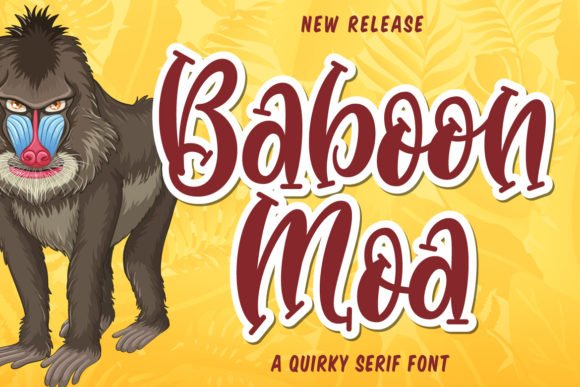
The Art of Expression: Unleashing Your Creativity with Baboon Moa Font
Have you ever found yourself staring at a blank canvas, waiting for inspiration to strike? For many designers, this moment of creative limbo can be a daunting challenge. But what if I told you that there’s a font that can help spark your imagination and bring your ideas to life? Enter Baboon Moa Font, a sweet and friendly handwritten font that’s perfect for adding a touch of personality to your designs.
Baboon Moa Font is more than just a typeface – it’s a tool that can help you express yourself in a unique and authentic way. With its natural and whimsical style, this font is incredibly versatile and can be used for a wide range of designs, from invitations and posters to social media graphics and more. Whether you’re a seasoned designer or just starting out, Baboon Moa Font is a valuable addition to your toolkit.
Baboon Moa Font Key Features
- Unique Characteristics: Distinctive, hand-drawn design with organic textures and imperfections
- Language Support: Supports over 100 languages, including Latin, Cyrillic, and Greek scripts
- Kerning and Ligatures: Includes advanced kerning and ligature pairs for professional typography
Baboon Moa Font Review
I recently had the chance to work with the Baboon Moa Font, and I must say it’s a unique and intriguing addition to any design project. ✨ The font’s quirky, handwritten feel adds a touch of personality to any text, making it perfect for branding and advertising materials.
- The font’s versatility is a major plus – it can be used for a wide range of applications, from logos to signage.
- The high-quality, detailed design of each letterform makes it a great choice for printing and digital displays alike.
- The font’s wide range of weights and styles allows designers to experiment with different moods and emotions.
However, there are a few limitations to consider ⚠️:
- The font’s size may make it difficult to read at very small scales, such as on business cards or other tiny print materials.
- The font’s irregularities may not be suitable for projects requiring a high degree of precision or uniformity.
Overall, I would recommend the Baboon Moa Font to designers looking for a unique and eye-catching addition to their projects. While it may not be suitable for every application, it’s a great choice for those looking to add some personality and whimsy to their designs.
For best results, use the font in headings and titles to add a unique touch to your designs.
Use the font in creative ways, such as in illustrations or graphics, to add a unique touch to your designs.
Use the font to create visually appealing presentations or documents.
The Baboon Moa Font is ideal for:
- Designing unique headings and titles.
- Creating eye-catching graphics and illustrations.
- Adding a personal touch to presentations and documents.
Remember to use the font in moderation to avoid overwhelming your designs.
Ostrich Sans is a modern sans-serif font designed for digital use. It’s ideal for headlines, titles, and body text where a clean and minimalist look is desired. When to use: Digital projects, magazines, and websites.
Comparison to Baboon Moa Font: Ostrich Sans is more legible at small font sizes and has a more uniform x-height, making it suitable for digital use. Baboon Moa Font has a more unique and quirky feel, while Ostrich Sans is more neutral and versatile.
Playfair Display is an elegant serif font designed for luxury and high-end branding. It’s perfect for creating a sophisticated and refined look. When to use: Luxury brands, high-end magazines, and special occasions.
Comparison to Baboon Moa Font: Playfair Display is more ornate and decorative, while Baboon Moa Font has a more modern and quirky feel. Playfair Display is better suited for formal and high-end projects, while Baboon Moa Font is more versatile and can be used for a wide range of projects.
What is the character set for the Baboon Moa Font?
The Baboon Moa Font includes a comprehensive character set that covers Latin, Greek, and Cyrillic alphabets, as well as a range of punctuation and symbol characters. The font also includes a set of OpenType features, such as ligatures and swashes, to enhance typographic quality and creativity.